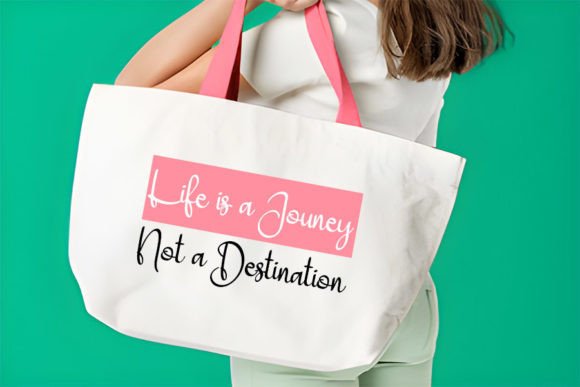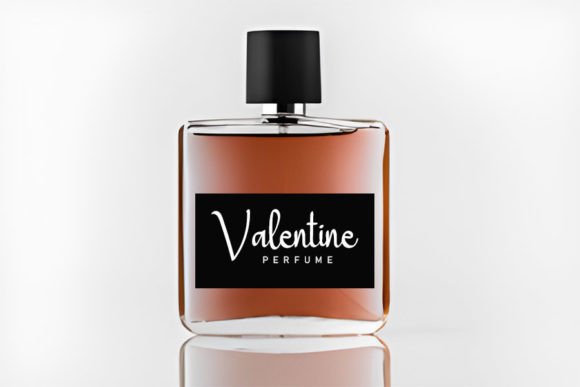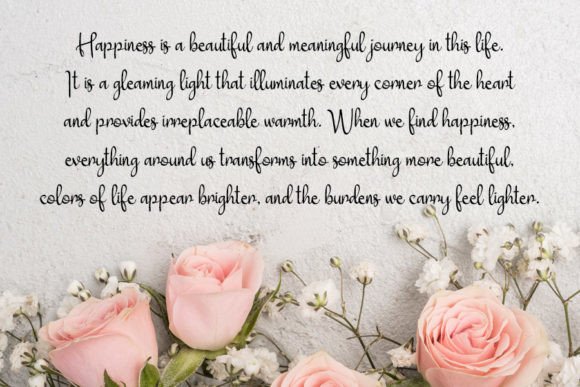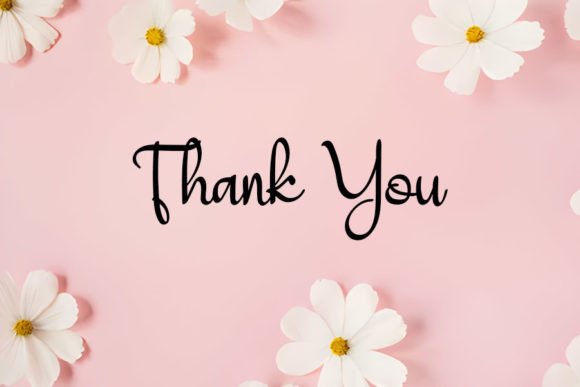
Have you ever stumbled upon a font that just makes you feel all the feels? For designers, that moment of serendipity is a beautiful thing. It’s the spark that sets your creative wheels in motion, inspiring you to bring your next project to life. For me, that moment came when I discovered the enchanting Chantika Font. Its romantic and sweet calligraphy style had me hooked from the very start.
With its casual yet elegant touch, Chantika Font is the perfect addition to any design project. Whether you’re creating a logo, wedding invitation, or signage, this versatile font has got you covered. Its characters dance along the baseline, adding a touch of whimsy and personality to any design. For designers, Chantika Font is a valuable asset, offering endless possibilities for creative expression.
Key Features of Chantika Font
- Font Family: Chantika Font is a unique, high-quality font family available in multiple styles.
- Unique Characteristics: Chantika Font features a distinctive, elegant design with subtle nuances in letterforms and ligatures, making it suitable for both body text and display use.
Chantika Font Review
As a designer, I’ve had the chance to experiment with the Chantika font, and here’s my honest take on it.
- Unique Character Set: Chantika has a distinct personality that sets it apart from other fonts. It’s perfect for projects that need a touch of elegance and sophistication.
- Excellent for Display Text: The font is incredibly legible, making it a great choice for titles, headings, and other display text elements.
- High-Quality Rasterization: The font renders beautifully in various sizes and resolutions, ensuring a crisp and clean appearance.
- Limited Font Families: Chantika is a single font family, which might limit its versatility in projects that require multiple font styles.
- Not Ideal for Body Text: While the font is great for display text, it may not be the best choice for large blocks of body text, as it can be a bit too ornate.
Chantika is a beautiful, high-quality font that’s perfect for projects that need a touch of sophistication and elegance. While it may have some limitations, it’s a great choice for display text and titles. With some careful selection, it can elevate your design to the next level.
For the most out of Chantika Font, use it for:
- Crafting elegant and sophisticated designs.
- Creating unique and eye-catching headlines.
- Designing wedding invitations, party invitations, and other special occasion materials.
- Adding a touch of elegance to your website or social media graphics.
Alternatives to Chantika Font
Lobster Font is a script font that is ideal for creating elegant and sophisticated designs. It is perfect for use in wedding invitations, formal events, and any other occasion that requires a touch of luxury. Compared to Chantika Font, Lobster Font has a more refined and polished look, making it a great choice for high-end designs.
Great Vibes Font is a modern and stylish script font that is great for creating a fun and energetic atmosphere. It is perfect for use in advertising, social media, and any other design that requires a playful touch. Compared to Chantika Font, Great Vibes Font has a more casual and relaxed look, making it a great choice for designs that require a friendly and approachable tone.